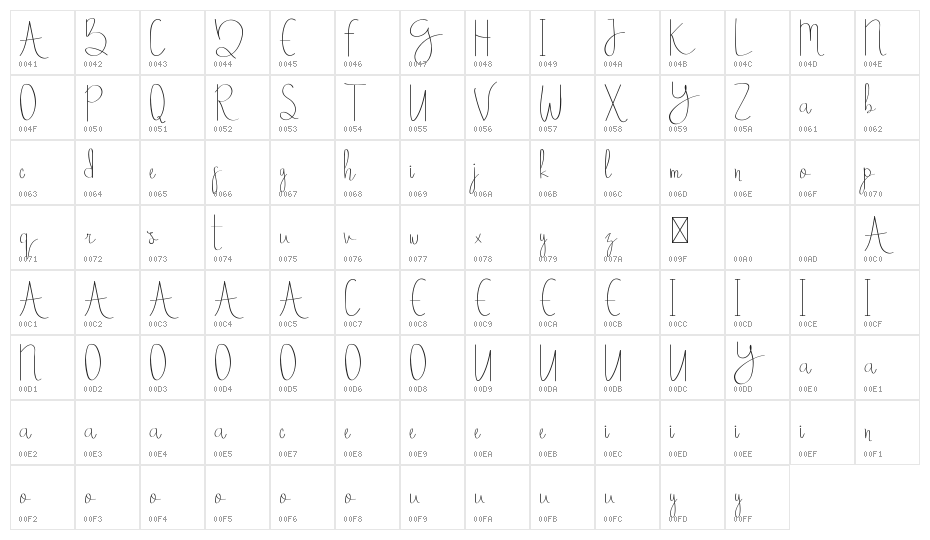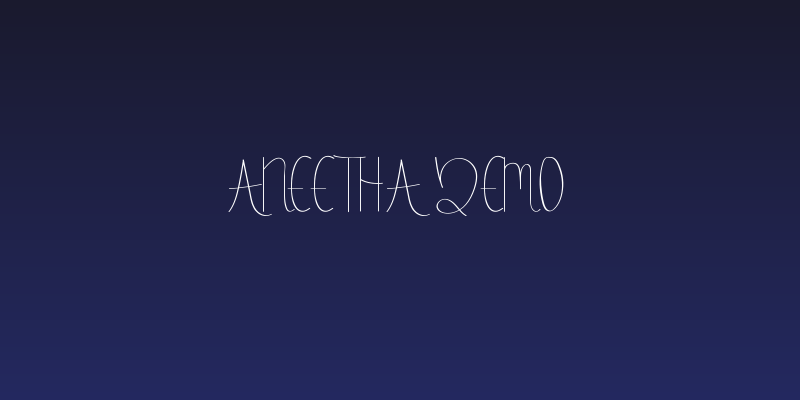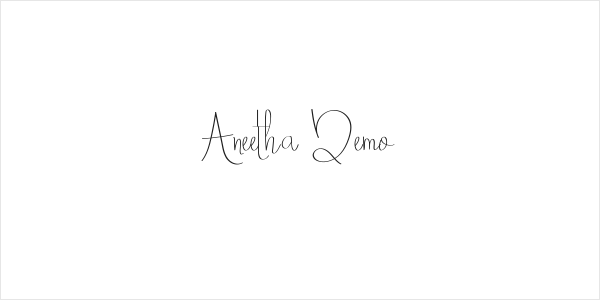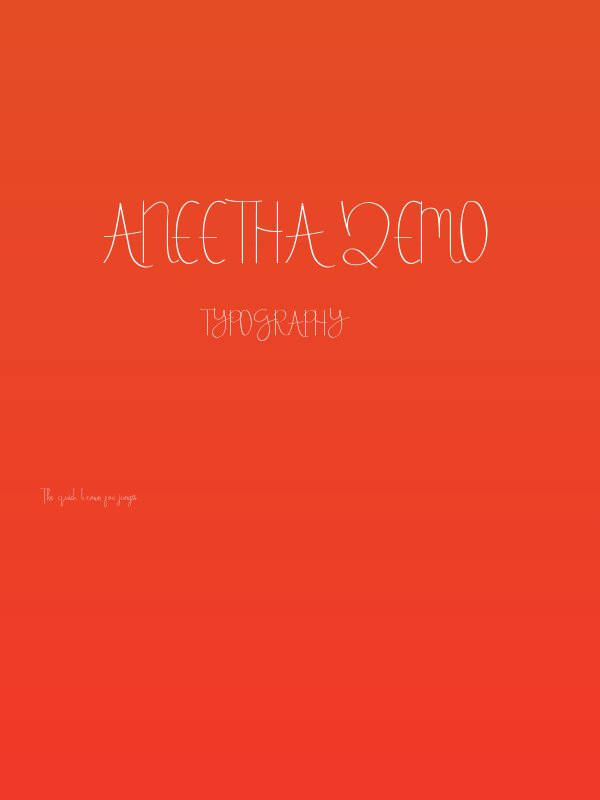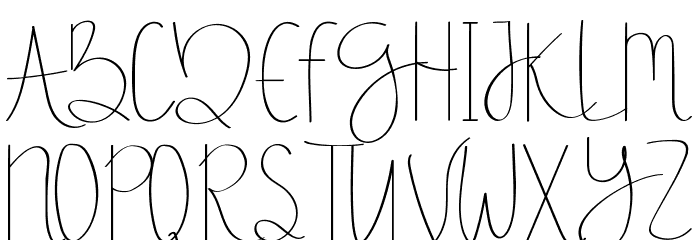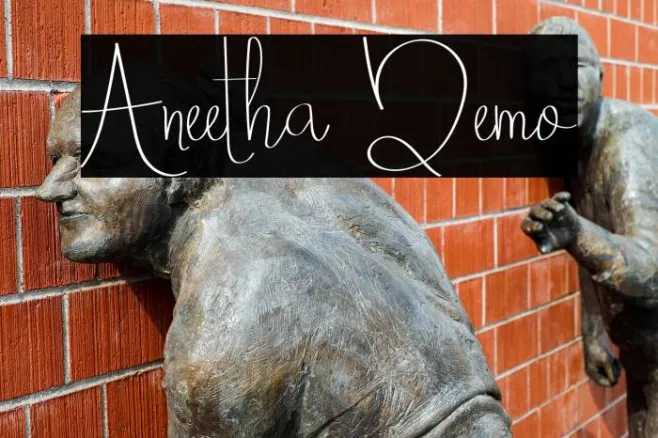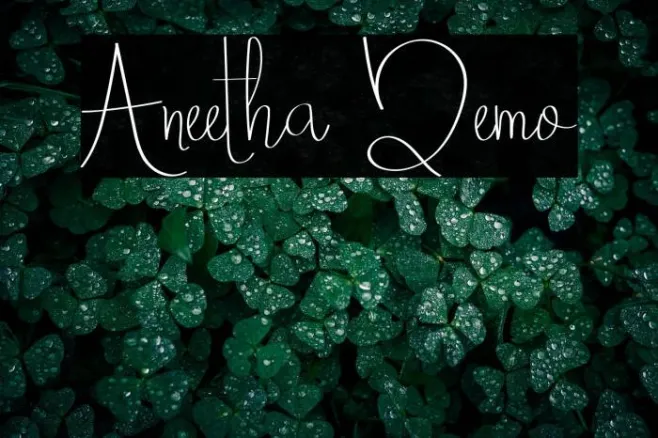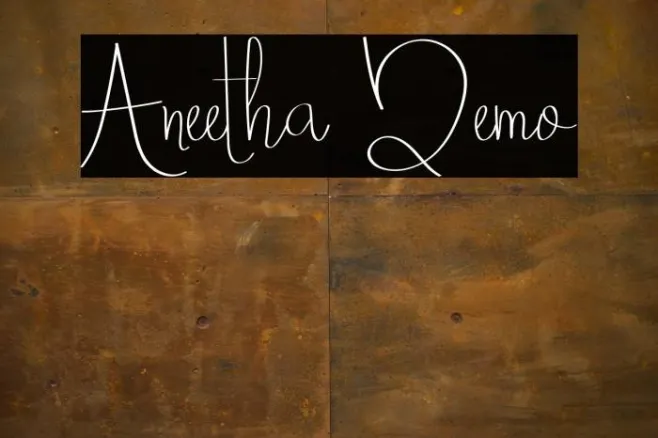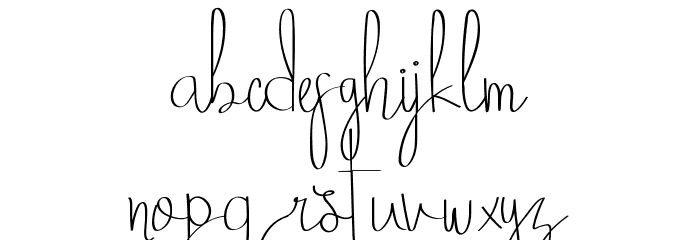
Aneetha Demo Font
Aneetha Demo Description
This font features an elegant and flowing script style with a whimsical touch. The characters are elongated and exhibit a graceful, hand-drawn quality, making them appear both sophisticated and playful. The uppercase letters are particularly ornate, with loops and swirls that add a decorative flair. The lowercase letters maintain a consistent style, complementing the uppercase with their own subtle curves and connections. The numerals and special characters follow the same aesthetic, ensuring a cohesive look across all text. This font's unique style is perfect for projects that require a personal and artistic touch.
| Proposed Projects | Ideal for wedding invitations, greeting cards, branding, and artistic projects that require a personal touch. |